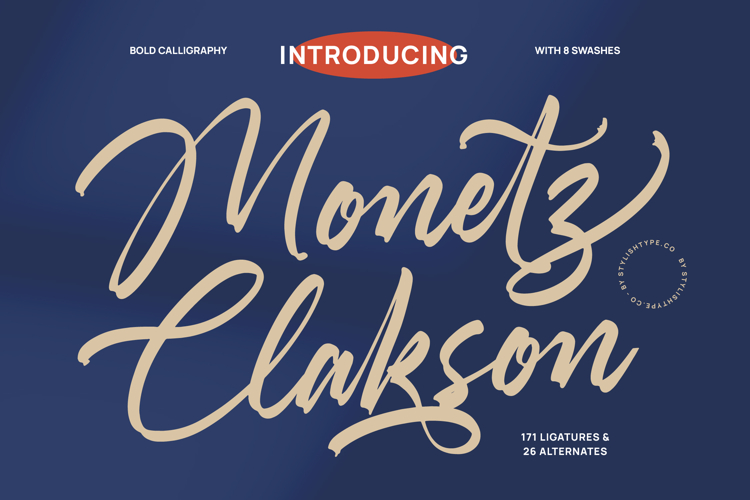
Monetz Clakson - Bold Calligraphy
Monetz Clarkson is a bold calligraphy font that combines strong brush-like strokes with stylish calligraphic flair. Its confident curves, bold ligatures, and expressive swashes make it a perfect choice for projects that demand impact, elegance, and modern artistic energy. Featuring 171 ligatures, 26 alternates, and 8 swashes, Monetz Clarkson gives designers the flexibility to craft dynamic and eye-catching lettering.
This typeface works beautifully in branding. Perfect for logos, lifestyle products, fashion brands, creative agencies, and product packaging, Monetz Clarkson communicates power and originality. Its bold handwritten strokes ensure that branding projects stand out with style and memorability, making it an excellent option for trend-driven businesses.
In editorial and publishing, Monetz Clarkson brings strength and elegance. Magazines, posters, book covers, and advertising spreads benefit from its bold calligraphic structure. It creates editorial layouts that are visually striking and stylish, turning simple text into artistic statements.